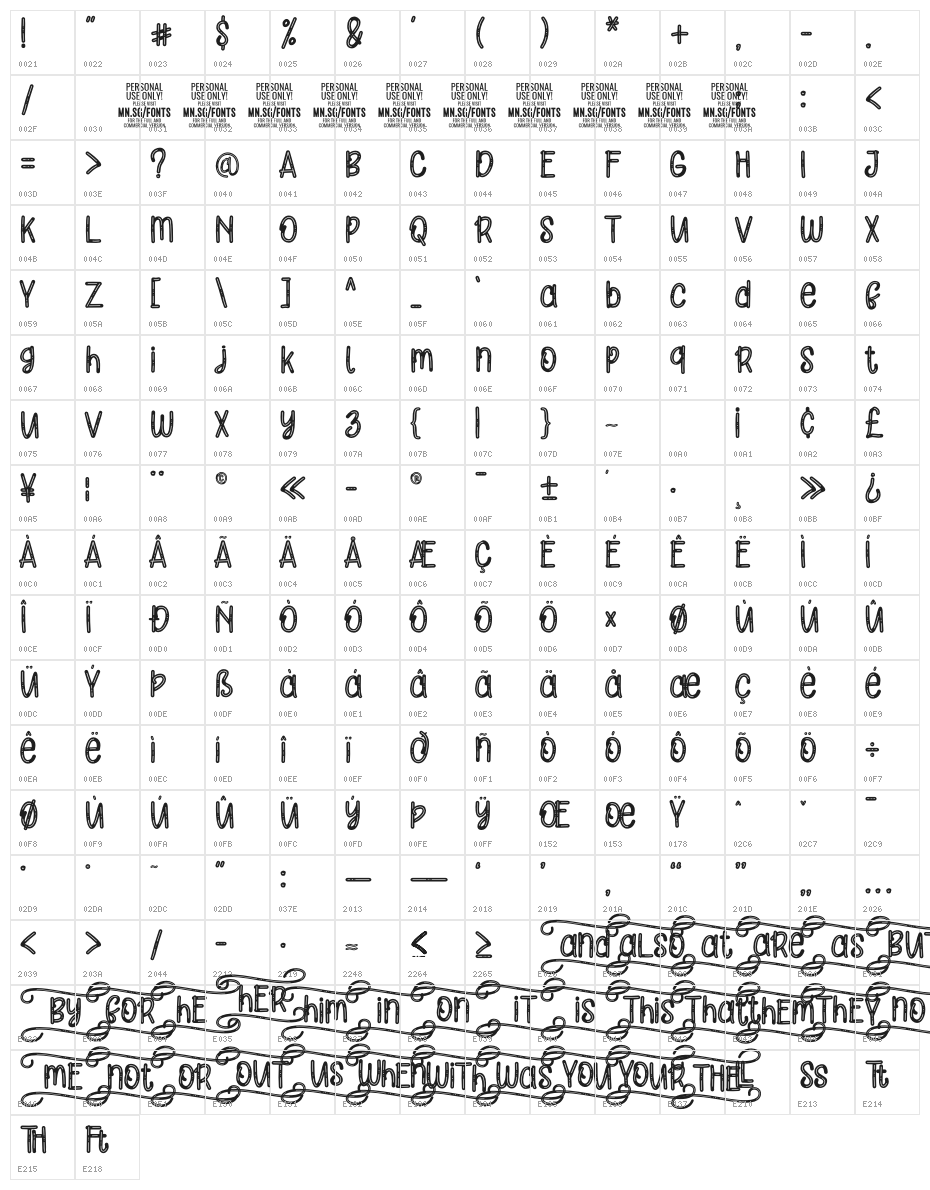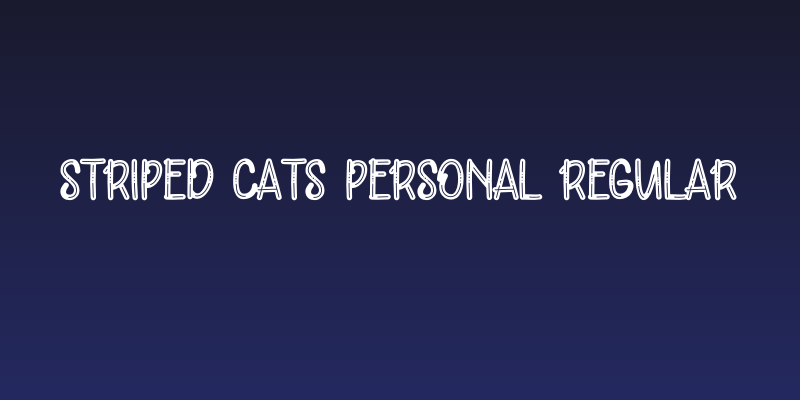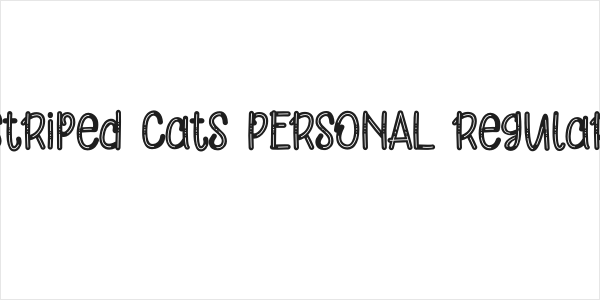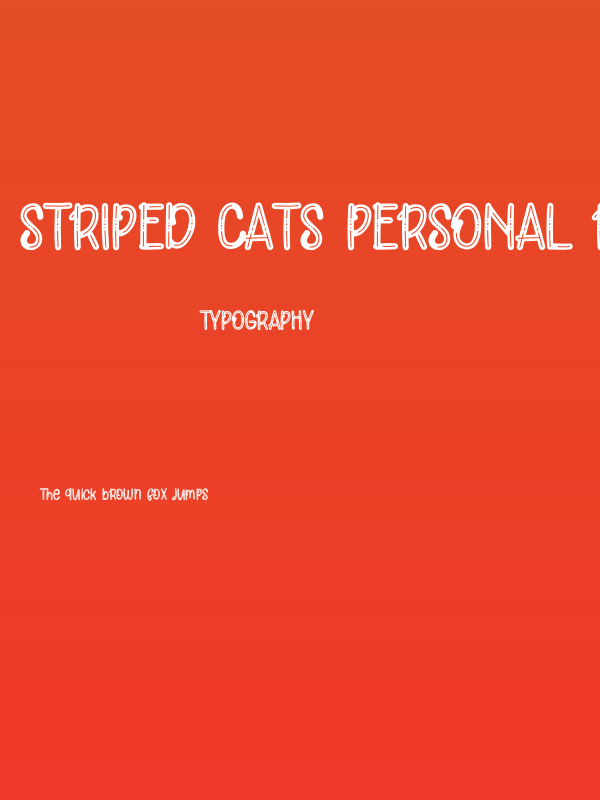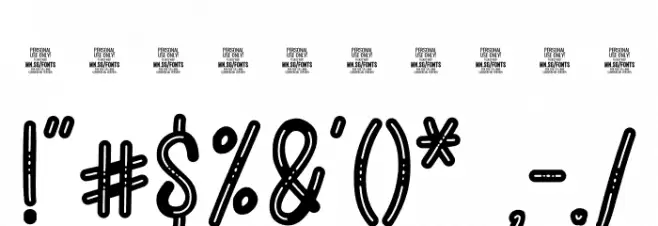
Striped Cats PERSONAL Regular Font
Striped Cats PERSONAL Regular Description
This playful and whimsical font features a unique striped pattern within each character, giving it a fun and lively appearance. The letters are rounded and bold, with a consistent thickness throughout, creating a sense of uniformity despite the decorative elements. The uppercase and lowercase letters maintain a cohesive style, with slight variations in curvature and height that add to its charm. The numerals and special characters are designed to match the overall aesthetic, ensuring a harmonious look across all text. This font's distinctive style makes it ideal for projects that require a touch of creativity and personality.